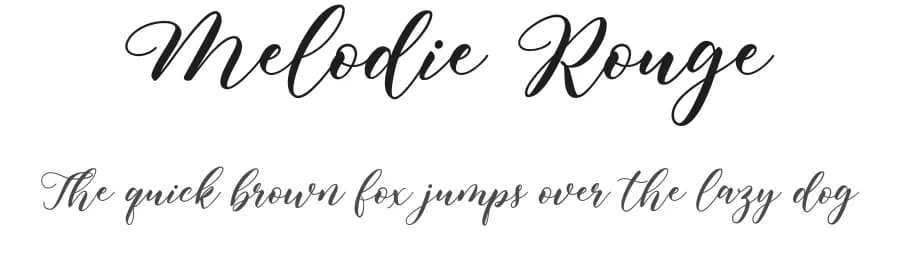
About Melodie Rouge Font
| Designer | Satine Design Studio |
Melodie Rouge Font is a script font that shines as a display or heading face. Pair it with a clean sans-serif or serif font for body text β the contrast creates a clear hierarchy while the two styles stay balanced and easy to read.
Melodie Rouge Font
by Satin Studio